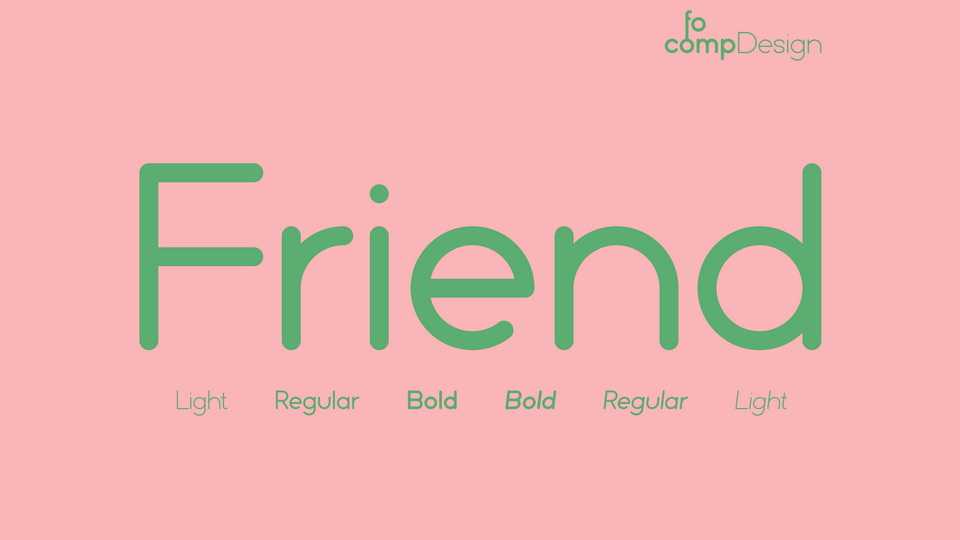
Download Friend font, a kind and versatile typeface. Its rounded, simple, and welcoming style makes it a great choice for various design projects. Whether you’re creating a clean website, a playful poster, or a minimalist design, Friend font has you covered.
Designer: focompDesign